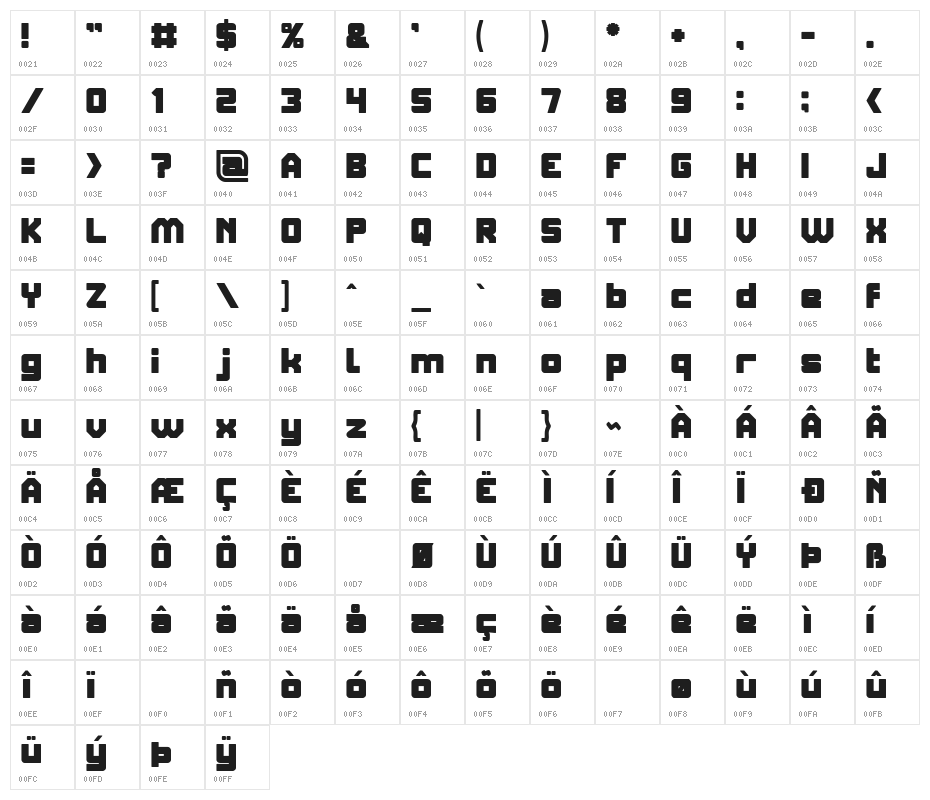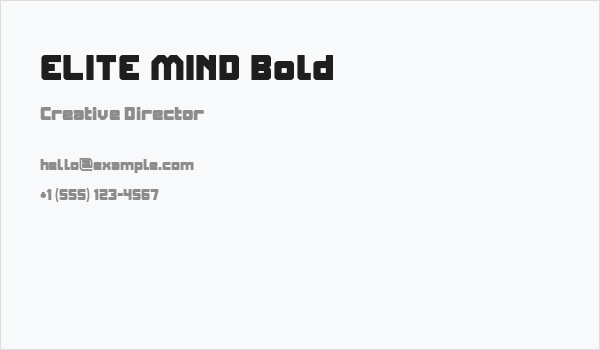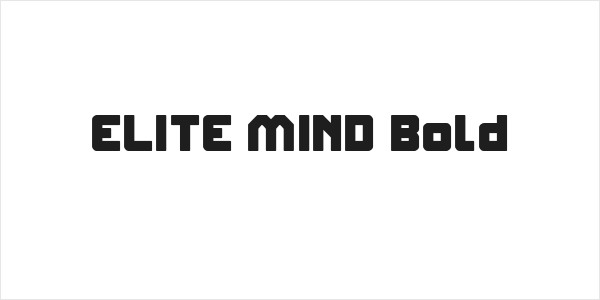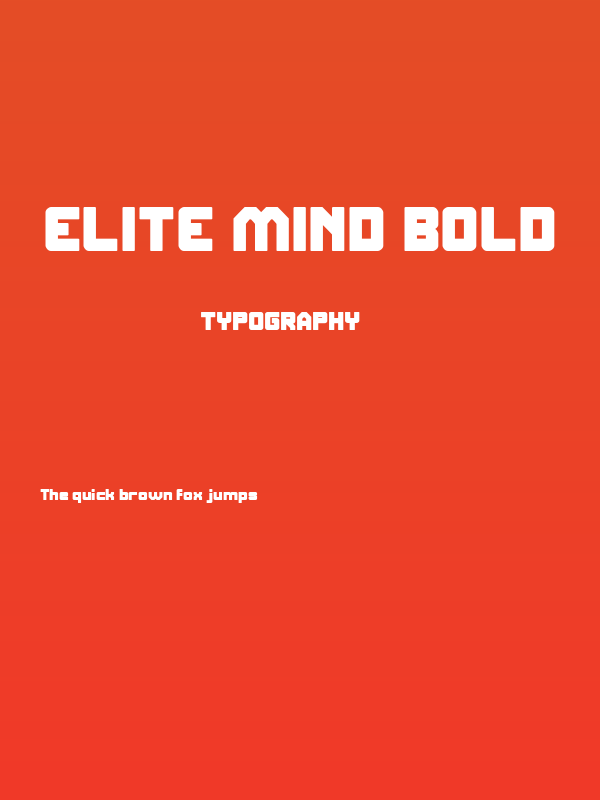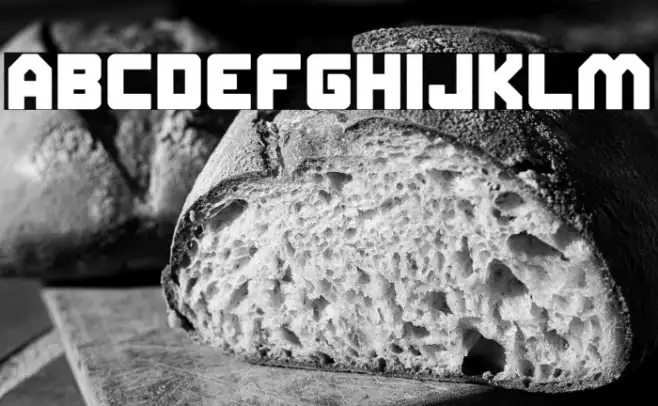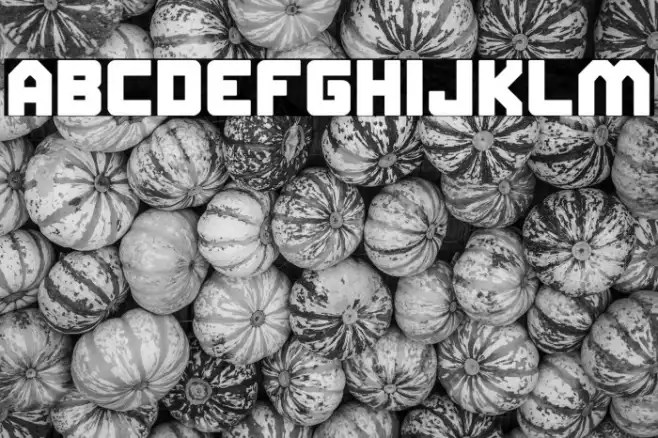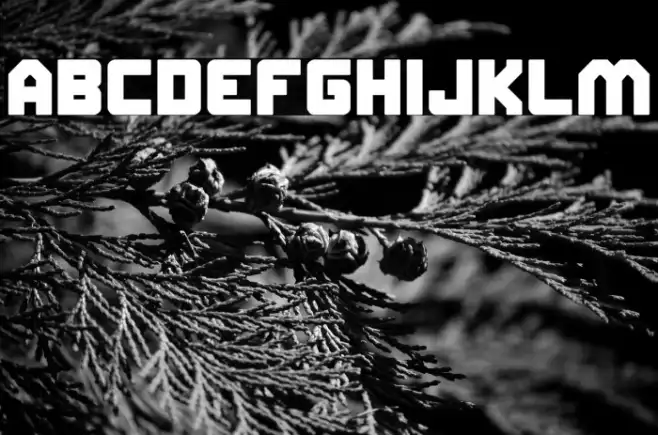
ELITE MIND Bold Font
ELITE MIND Bold Description
This font features a bold and geometric design, characterized by its blocky and angular letterforms. The uppercase and lowercase letters maintain a consistent thickness, giving it a strong and impactful presence. The numbers and special characters follow the same bold style, ensuring uniformity across all characters. Its design is modern and slightly futuristic, making it suitable for projects that require a strong visual impact. The font's structure is clean and straightforward, with no additional embellishments, emphasizing clarity and readability.
| Proposed Projects | Ideal for branding, headlines, posters, and any design requiring a strong visual impact. |